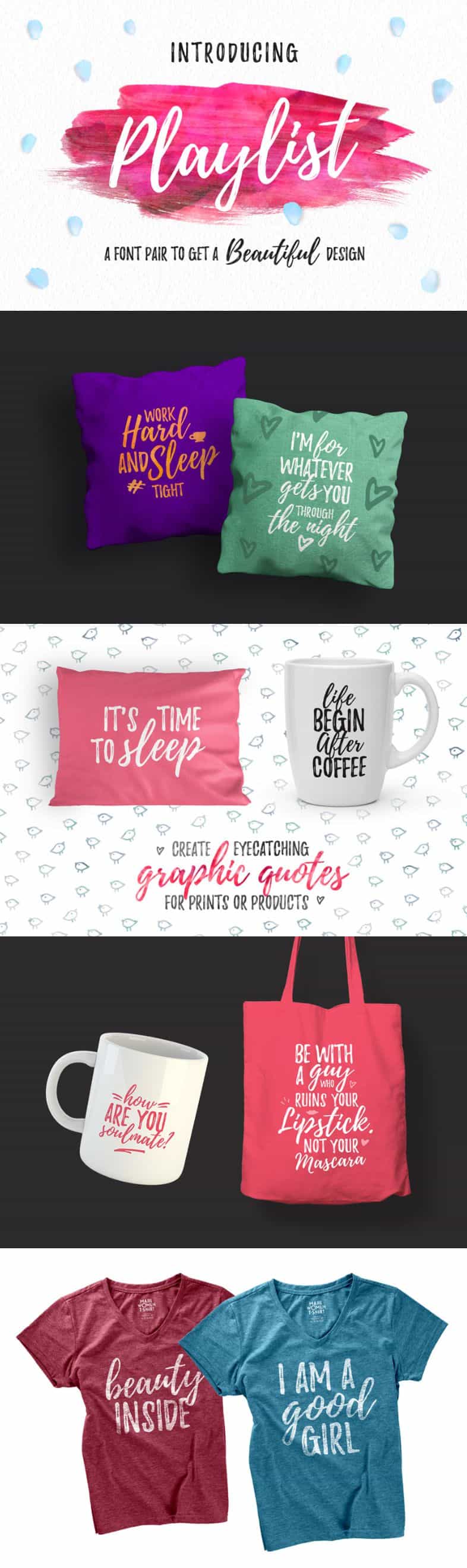
Playlist is, in fact, an irregular hand drawn font with dry brush effects that is not for the perfectionist, or for anyone who prefers a perfect font with no small imperfections. Playlist font contains 3 styles: Script, Caps, and Ornament – that elements, which, being combined, can yield magnificent design. This is the best playlist free font that you can use for any purpose whichever it is personal or commercial. It can be used in or as wedding invitation, greeting card, Illustration, quotes, poster, t-shirt design and several other things.